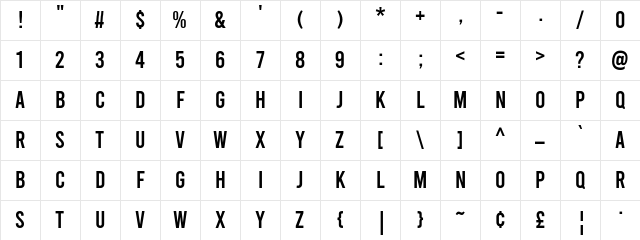
Bebas Regular
Foundry: Dharma Type
Designer: Ryoichi Tsunekawa
Design Context for Bebas
Bebas is a composed and adaptable typeface that performs quietly and consistently across a wide range of design contexts.
Pro Tip: Use Bebas in both headline and body roles to test its range before committing to a single application.
Who designed the Bebas Regular font?